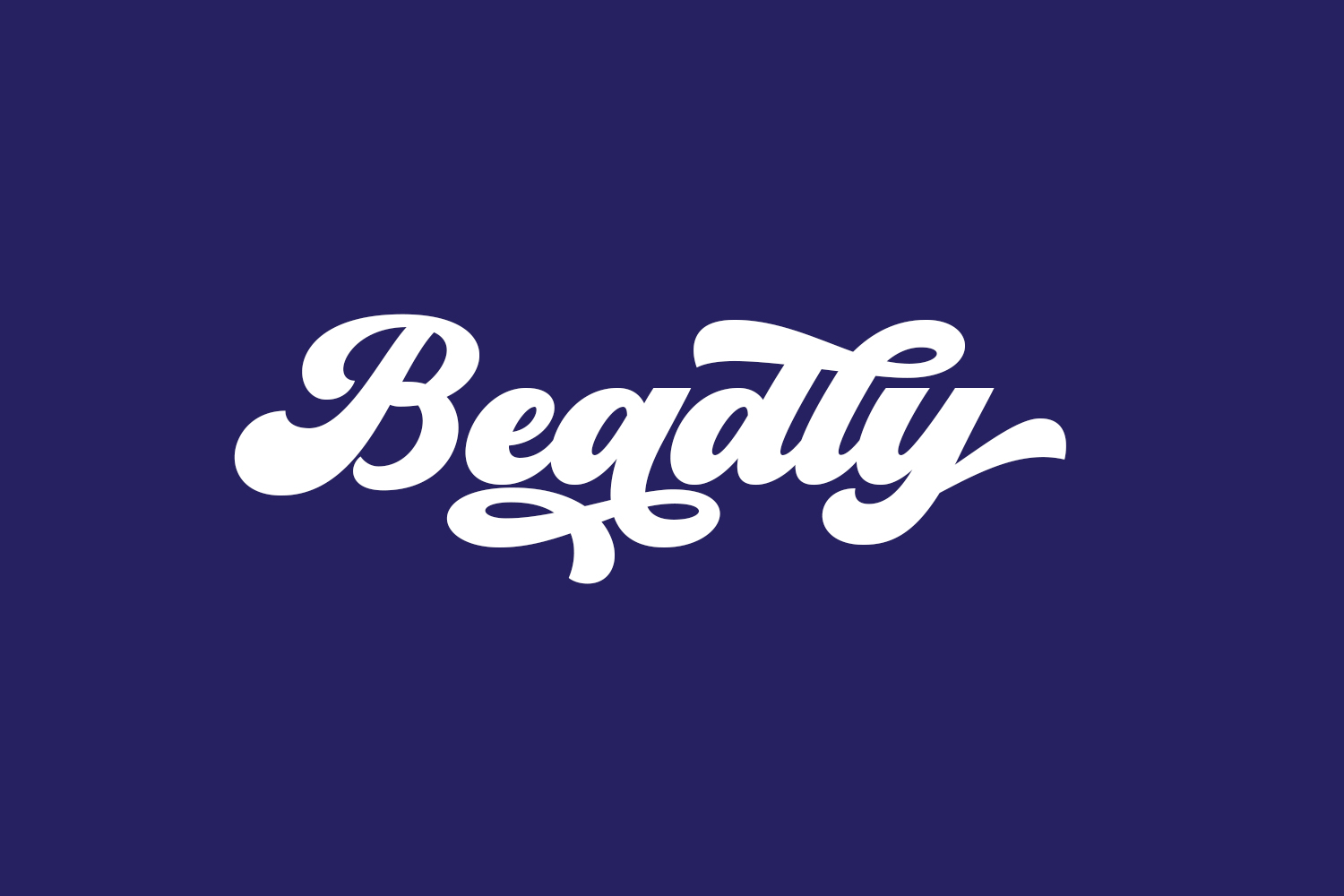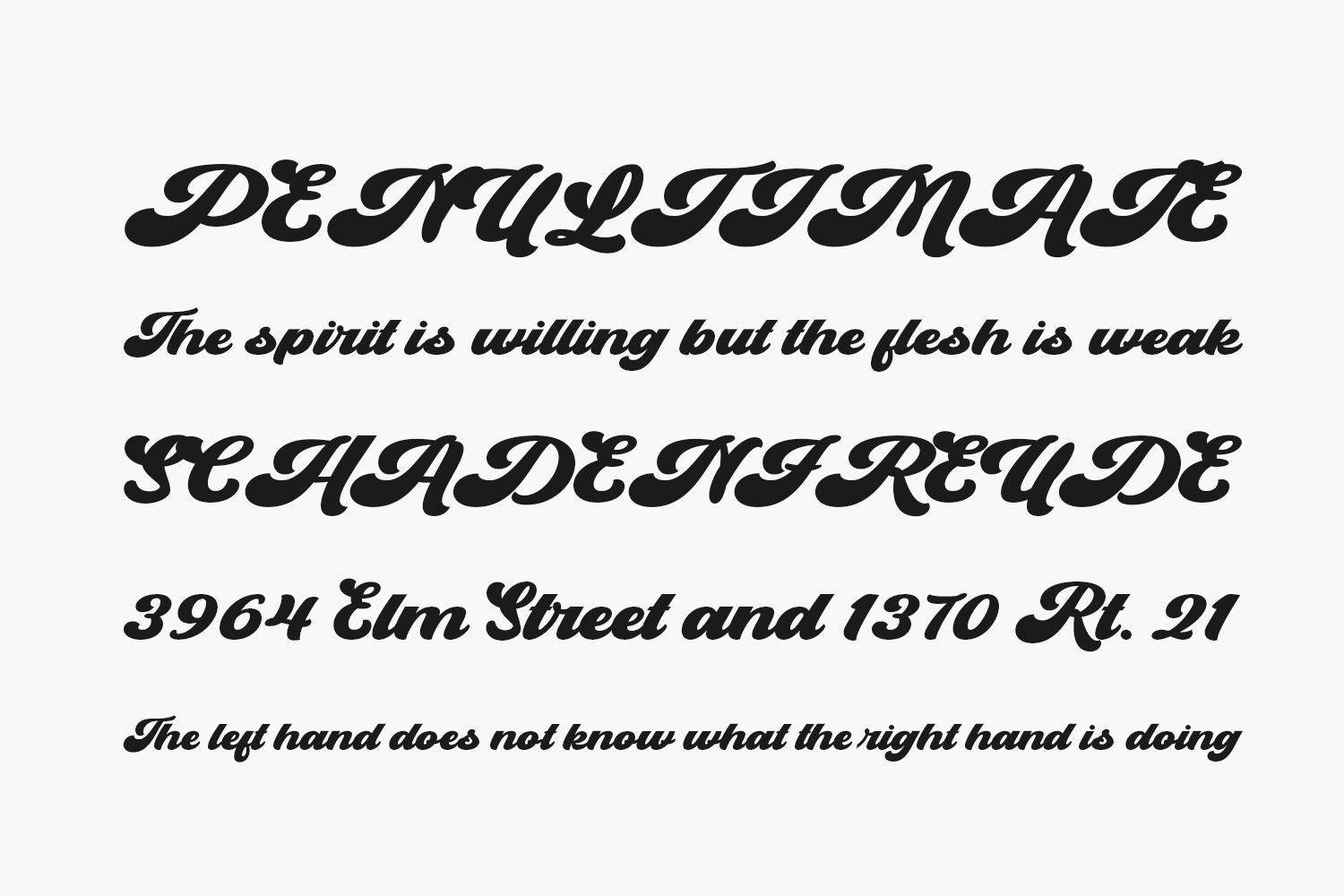
Introducing Beadly Free Font, a bold retro script that channels the groovy vibes of the 70s. With its convenient extrude version, you can effortlessly craft your own retro-inspired font. This versatile typeface is tailor-made for logos and a wide range of formal applications, including invitations, labels, magazines, books, greeting cards, packaging, fashion, makeup, stationery, novels, advertisements, and more. Beadly Free Font is free for personal use only. Please purchase the full version for commercial use.
Designed by Ahwe Project